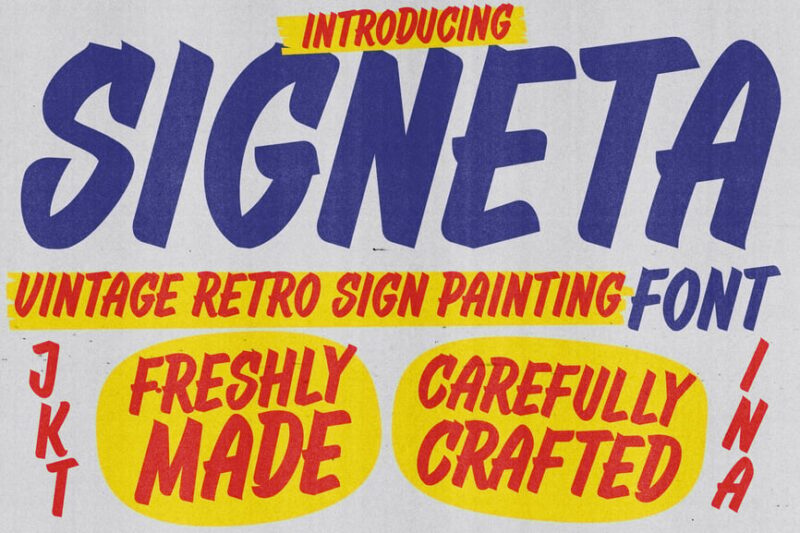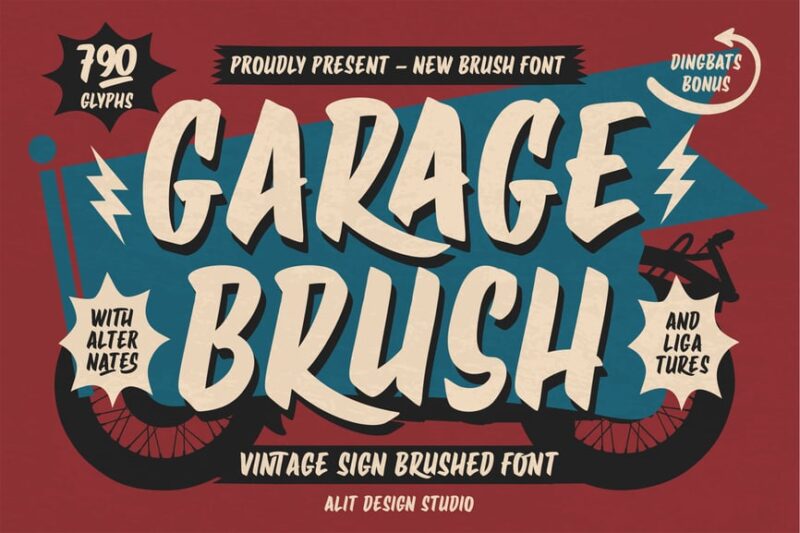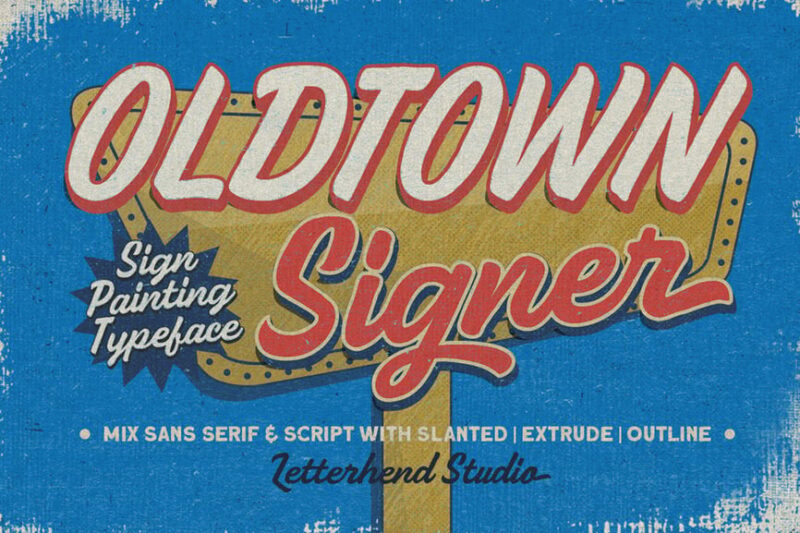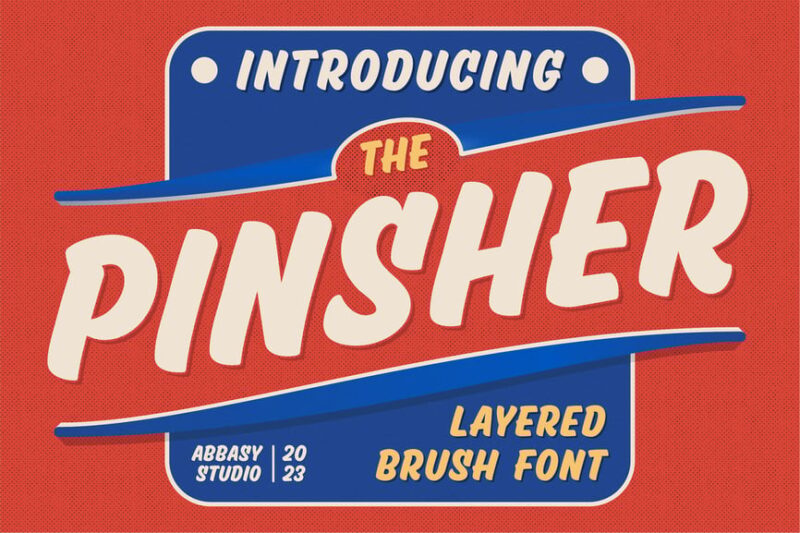
There’s something deeply satisfying about watching a skilled sign painter work their magic—the steady hand, the confident brush strokes, the way each letter seems to flow effortlessly onto wood, glass, or metal. It’s an art form that predates computers by centuries, yet somehow feels more relevant than ever in our digital age.
Sign painting fonts capture that handcrafted authenticity we’re all craving in 2026. They bring the soul of traditional signage into modern design work, offering that perfect blend of nostalgia and craftsmanship that makes people stop and stare.
Whether you’re designing a vintage storefront logo, creating rustic wedding invitations, or adding character to a brewery brand, the right sign painting font can transform your project from “just another design” into something that feels genuinely special.
In this comprehensive guide, we’ll explore everything you need to know about sign painting fonts—from their rich history to practical tips for using them in your own work. So grab your virtual brush, and let’s dive into the world of hand-lettered typography!
The Top Sign Painting Fonts of 2026
Not all sign painting fonts are created equal. Some capture that authentic brush stroke better than others. Here are my favorite sign painting fonts that truly deliver that handcrafted sign painter aesthetic:
Sign Painting Corporate
This versatile sign painting font is perfect for creating classic branding with a professional touch. Its brush-like strokes and corporate-friendly design make it ideal for businesses looking to add a handcrafted feel to their visual identity while maintaining a polished appearance.
Cowtail Brush Sign Font
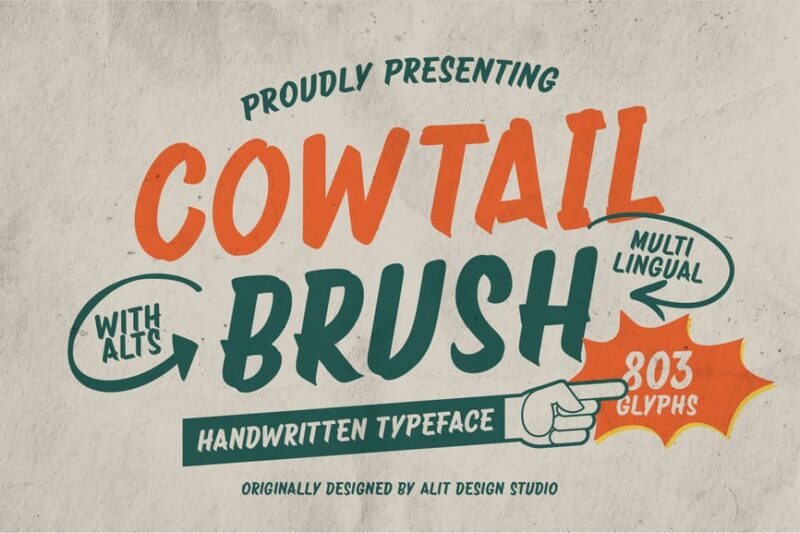
Cowtail Brush is a rustic sign painting font that captures the essence of Western-style typography. Its bold, sweeping strokes and cowboy-inspired design make it perfect for creating authentic-looking signage, logos, and branding materials with a touch of frontier charm.
Signs Painted
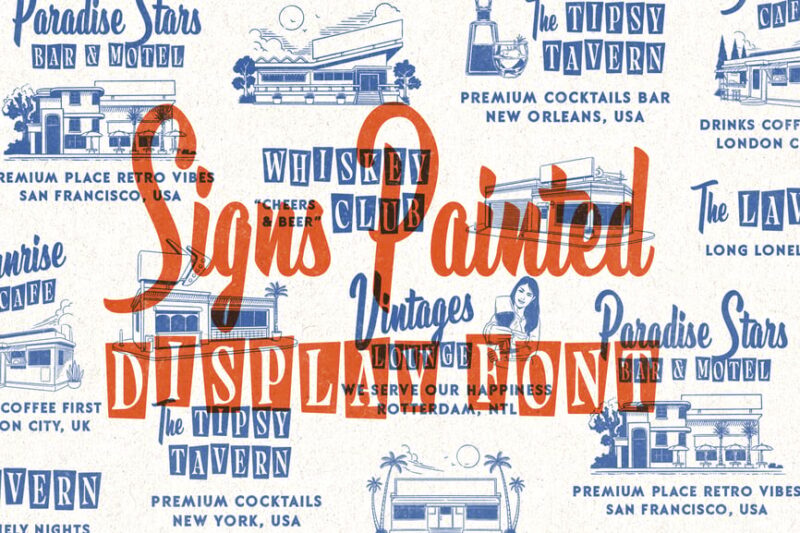
Signs Painted is a versatile display font that embodies the art of traditional sign painting. Its vintage-inspired design and decorative serifs make it an excellent choice for creating eye-catching headlines, logos, and signage that evoke a nostalgic, hand-crafted feel.
Signature Creation
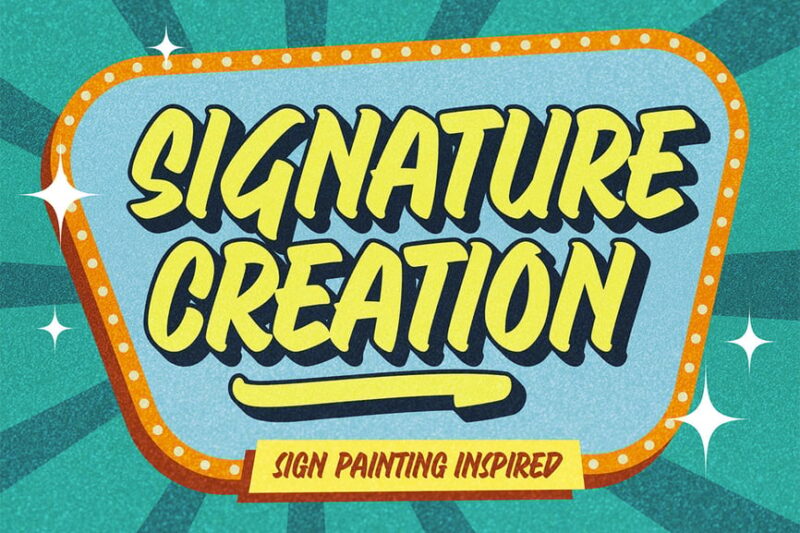
Signature Creation is a sleek and modern take on sign painting fonts. Its minimalist approach and fluid strokes make it ideal for creating elegant logos, signatures, and branding elements that combine the warmth of handwritten text with a contemporary aesthetic.
Sign Painting – Retro Casual Logo
This retro-inspired sign painting font captures the casual, laid-back vibe of vintage outdoor signage. Its watercolor-like texture and relaxed letterforms make it perfect for creating logos and branding materials that evoke a sense of nostalgia and adventure.
Sign Labeling
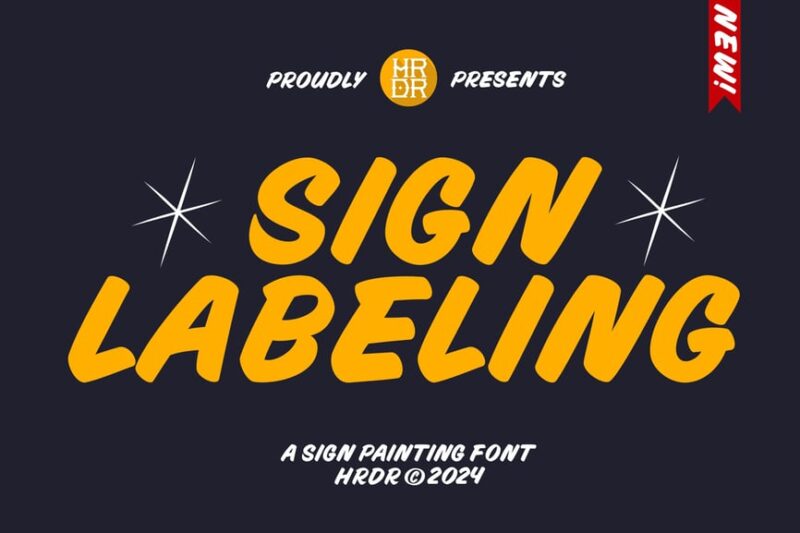
Sign Labeling is a authentic sign painting font that captures the essence of traditional hand-lettered signage. Its versatile design and attention to detail make it an excellent choice for creating everything from vintage-inspired labels to modern branding materials with a handcrafted touch.
Captain Casual
Captain Casual is a charming sans-serif font that brings the artistry of sign painting to a more relaxed, everyday style. Its friendly letterforms and subtle brush texture make it ideal for creating approachable branding and signage with a hint of handmade character.
Deal
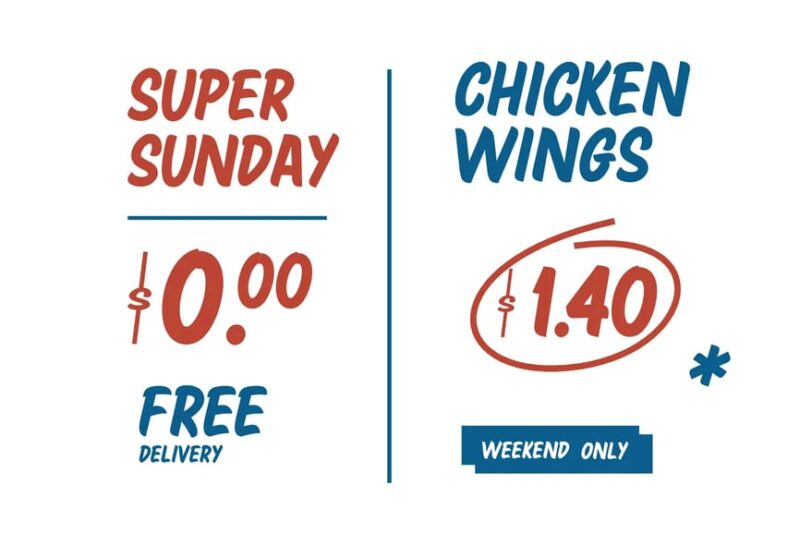
Deal is a bold, modern take on traditional sign painting fonts. Its grunge-inspired texture and strong sans-serif design make it perfect for creating impactful signage and branding that combines vintage charm with contemporary edge.
BRUSHEO
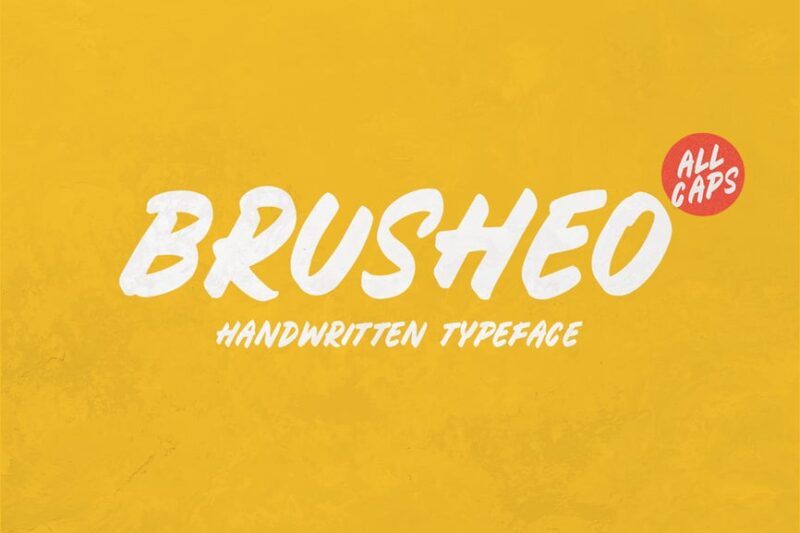
BRUSHEO is a dynamic script font that captures the fluid motion of a sign painter’s brush. Its bold strokes and natural flow make it an excellent choice for creating eye-catching logotypes and branding materials that exude energy and craftsmanship.
Narrabeen Brush
Narrabeen Brush is a lively script font inspired by the world of surf and sports. While not strictly a sign painting font, its energetic brush strokes and casual style make it suitable for creating dynamic signage and branding with a beachy, active vibe.
Lakon Rokum
Lakon Rokum is a bold sign brush font that mimics the look of spray-painted signage. Its gritty texture and strong letterforms make it perfect for creating urban-inspired designs and edgy branding that stands out from traditional sign painting styles.
So the next time you’re starting a project that needs some handcrafted magic, consider reaching for a sign painting font. Study the real craft behind the letterforms. Play with composition and color. And don’t be afraid to let things be a little imperfect—after all, that’s where the beauty lives.